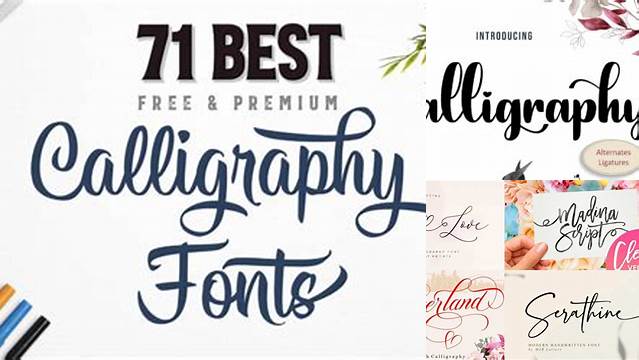
Download Free Calligraphy Fonts: Your Ultimate Guide
Hey everyone! 👋 If you're anything like me, you're probably obsessed with the elegant beauty of calligraphy. There's just something so mesmerizing about those flowing strokes and artistic flair. And the best part? You don't need to break the bank to get started! This guide is all about calligraphy fonts free, diving into where to find them, how to use them, and even some tips to make your designs pop. Whether you're a seasoned designer or a total newbie, get ready to unlock a world of beautiful typography without spending a dime. Let's dive in and explore the wonderful world of free calligraphy fonts!
🖋️ Unleashing Your Creativity with Calligraphy Fonts
So, what exactly is a calligraphy font? Well, think of it as a digital version of the art of beautiful handwriting. Instead of using a pen and ink, these fonts mimic the graceful curves and intricate details you'd find in traditional calligraphy. They're perfect for adding a touch of elegance, sophistication, or even a bit of whimsy to your projects. And the best part? You don't need to be a calligraphy master to use them! Just download the font, install it on your computer, and start typing. 🤯
Calligraphy fonts are incredibly versatile. They can be used in a wide range of applications, from personal projects like invitations and greeting cards to professional design work like logos and website headers. Imagine the impact of a beautifully designed wedding invitation with a stunning calligraphy font. Or consider a logo that instantly communicates a sense of luxury and artistry. The possibilities are truly endless. ✨ The beauty of calligraphy fonts also lies in their ability to evoke different emotions. A delicate, flowing script can convey romance and tenderness, while a bold, assertive font can communicate strength and confidence. The choice of font can significantly impact the overall message of your design, so it's important to choose wisely. Also, the quality of the font is important, some fonts are hard to read, so you need to make sure that it is readable. Using calligraphy fonts free can be a great way to experiment and find the perfect style for your project without any financial commitment. Once you have tried a lot of them, you will know which is the best. Furthermore, calligraphy fonts are an excellent way to personalize your designs. They add a human touch that can't be replicated by generic fonts. Whether you're creating a birthday card for a loved one or designing a website for your business, a well-chosen calligraphy font can make all the difference. Finding the right font is key to the success of the project.
💻 Where to Find the Best Free Calligraphy Fonts
✨ Tips for Using Calligraphy Fonts Effectively
So, you've got your calligraphy fonts free, now what? Here are some tips to help you use them like a pro:
- Choose the Right Font: Not all calligraphy fonts are created equal! Consider the overall tone and style of your project when selecting a font. Do you want something elegant and romantic, or modern and playful? Choose a font that complements your message and your brand. Do not pick the wrong one, that will damage the overall quality of your design.